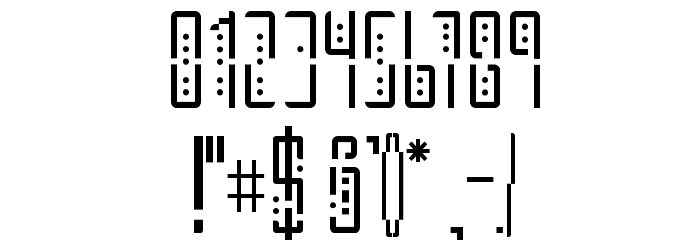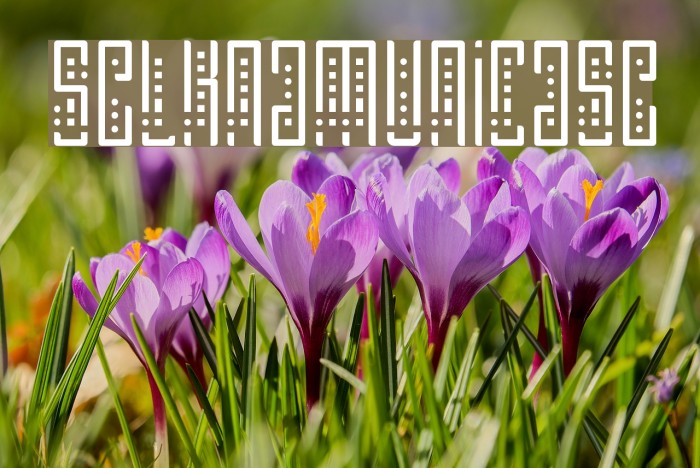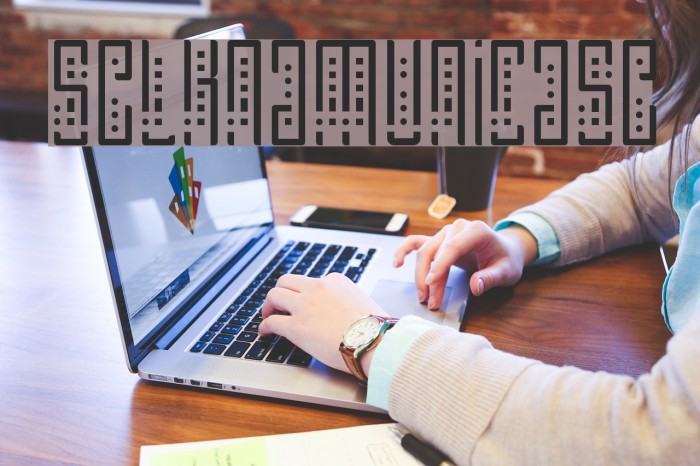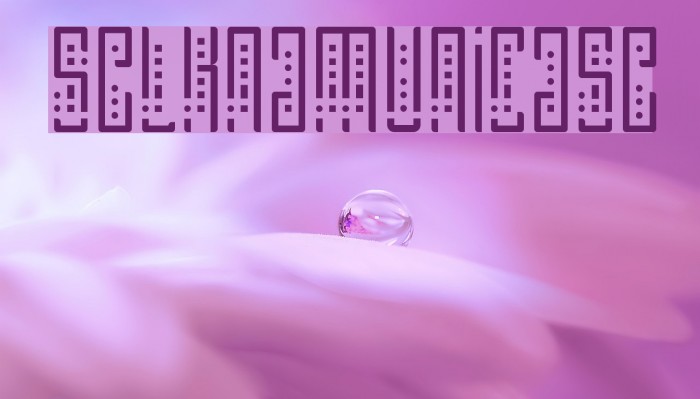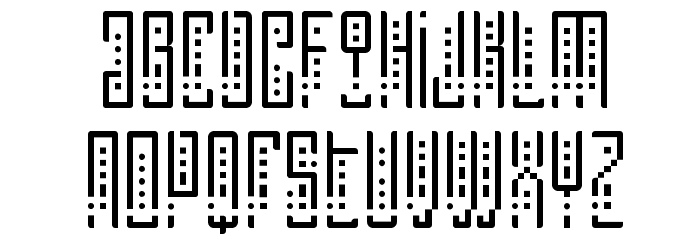
SelknamUnicase Font
This font features a unique, geometric design with a modern twist. Each character is constructed using a combination of straight lines and dots, creating a digital, almost futuristic appearance. The uppercase and lowercase letters share a similar structure, enhancing the font's unicase style. The numbers and special characters maintain the same design ethos, ensuring consistency across all glyphs. The font's distinct style makes it stand out, with its dotted accents adding a playful yet structured element to the overall look.
A geometric, modern font with a unicase style and dotted accents.
• Proposed Projects: Ideal for digital art projects, futuristic branding, tech-related designs, and modern posters.
• Category: Decorative/Display
• Contrast: Low
• Overall Style: Modern
• Use Case: Logos, Posters, Digital Art